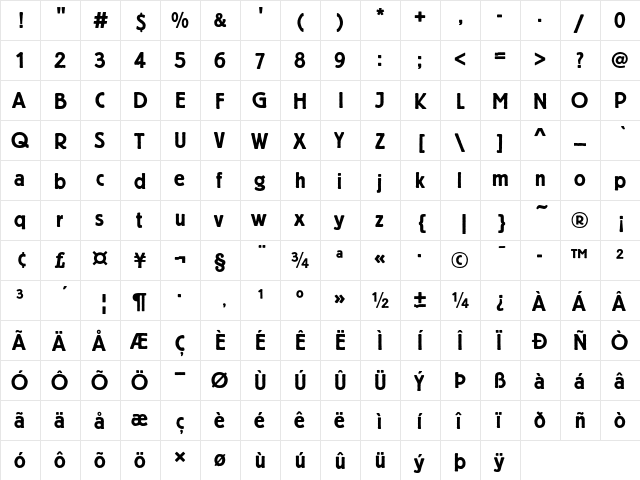
Berliner Grotesk D Demi Bold
Design Context for Berliner Grotesk D Typeface
Berliner Grotesk D takes a clean, functional approach — its unadorned letterforms prioritise legibility and work reliably across screen and print environments. The heavy weight commands attention and anchors typographic hierarchies.
A strong choice for UI design, app interfaces, bold signage, and corporate brand systems.
Font Pairing: Use Berliner Grotesk D for headlines alongside a lighter-weight sans or serif for body copy to establish clear visual hierarchy.
Pro Tip: Pair Berliner Grotesk D with a display or serif font for headlines — its neutral character makes it an excellent supporting player in complex typographic systems.